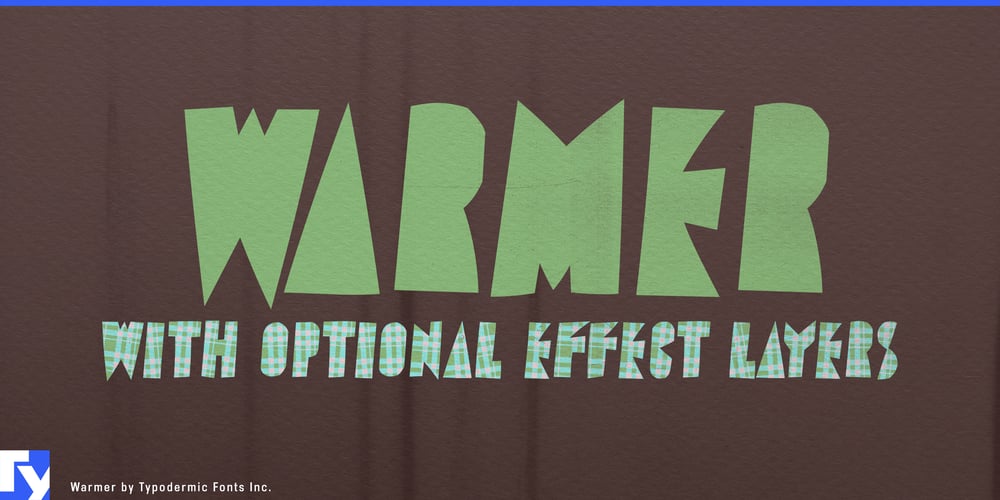
Warmer Font Family was designed by Ray Larabie and published by Typodermic. Warmer contains 3 styles and family package options. Wrap your designs in the comforting embrace of Warmer—a typeface that breathes life into digital spaces with the tactile charm of handcrafted textiles. This innovative creation doesn’t just display text; it weaves a visual tapestry that invites touch and ignites imagination.Warmer’s compact, counterless letterforms evoke the look of carefully cut fabric, each character a small work of art in itself. But the true magic lies in its layered versatility. With two distinct effects layers at your disposal, you can create the illusion of a richly textured checked fabric, adding depth and dimension to your designs that go far beyond traditional typography. Imagine the possibilities: craft invitations that feel like miniature quilts, design brand identities that exude homespun authenticity, or create digital greeting cards that capture the essence of a hand-stitched heirloom. Warmer adapts to your creative vision, allowing you to play with color schemes and layer combinations to achieve just the right mood—from cozy cabin retreat to modern rustic chic.This typeface isn’t confined to a single cultural aesthetic either. Warmer speaks the language of comfort across continents, supporting an extensive range of Latin-based European writing systems. From the fjords of Norway to the sun-drenched plains of Africa, Warmer’s message of warmth and craftsmanship translates beautifully. It effortlessly adapts to languages as diverse as Afrikaans, Lithuanian, and Swahili, ensuring your designs resonate with audiences worldwide.Why settle for cold, impersonal typography when you can infuse your work with the warmth of handmade craft? Choose Warmer, and watch as it transforms your designs into inviting spaces that beg to be explored. Let your creativity flourish with a typeface that turns every project into a cozy, tactile experience. Embrace the warmth—choose Warmer.